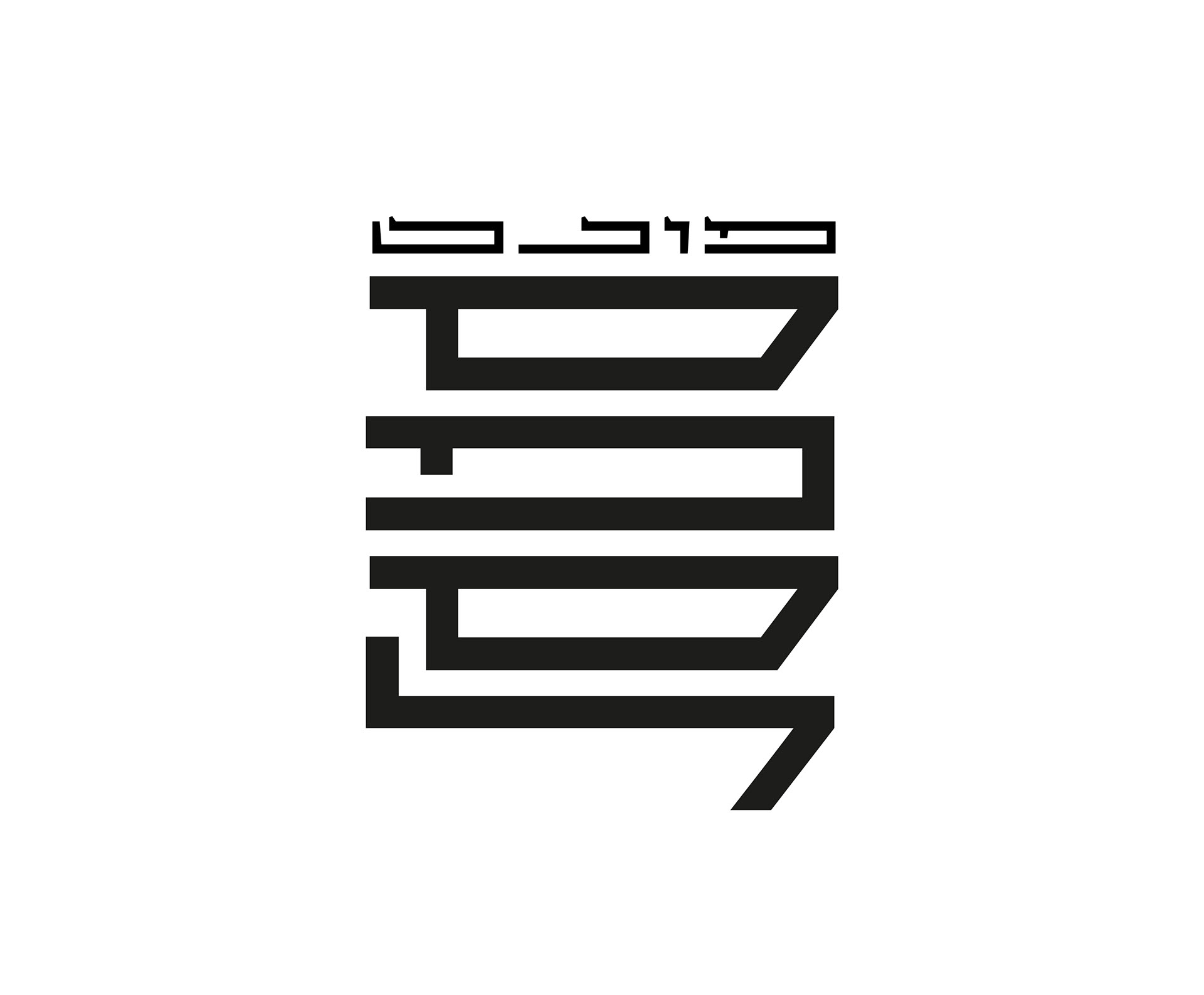
"Slang" is a street style clothing shop made for skaters and youth who "live in the streets".
"Osafim Mebeit Aba" is a fanzine (fan magazine) which showcase personal collections.
"Safeguard" is a tech company who provides a smart platform for monitoring managing safety at construction work sites.
"Rebdion Yerushalmi" is a smart construction company specializing in planning, development, production and installation of construction infrastructure products of complex materials.
״The Commission for Equal Rights of Persons with Disabilities״ is a unit within the Ministry of Justice that works to prevent discrimination and promote the integration of persons with disabilities in Israeli society.
"KIRU" is a Samurai high tech company that makes gaming products with cutting edge precision.
"tef tech" is a private startup specializes in producing innovative nutritional supplement snacks made from tef flour, providing consumers with energy and healthy nutrition in a tasty and convenient way
״The Commission for Equal Rights of Persons with Disabilities״ is a unit within the Ministry of Justice that works to prevent discrimination and promote the integration of persons with disabilities in Israeli society.
"FobiFont" is a store meant to demonstrate the feeling of the fear of long words (Hippopotomonstrosesquippedaliophobia).
"Atlantium" is a tech company that provides a sustainable water purifying treatment solutions.
"Los Santos" is an Israeli-Argentinian football bar beer brewery.
״The Commission for Equal Rights of Persons with Disabilities״ is a unit within the Ministry of Justice that works to prevent discrimination and promote the integration of persons with disabilities in Israeli society.
״Merkaz Tal״ is a healer clinic specializing in professional and compassionate guidance that combines diverse healing techniques, tailored to each client's needs, aiming to create mental, spiritual, and physical balance.
"Cringe" is a group of hackers whose its only purpose is to annoy their victims.
"Safsal" is an ultra-wide Hebrew display font suitable for horizontal and vertical writing.
"Autofocus" is an art photography TV channel.
״The Commission for Equal Rights of Persons with Disabilities״ is a unit within the Ministry of Justice that works to prevent discrimination and promote the integration of persons with disabilities in Israeli society.
"ART URBAN RACE" is an ART MEDICAL company HR event based on the famous reality TV show "The Amazing Race" ("Hmerutz Lamilyon") and takes places in Tel-Aviv.
"Cubano" is a Cuban food truck with special homemade Cuban recipes.
"The Circle" is a secret cult of people who lives and does EVERYTHING together and have a zero privacy policy.
"Yggdrasil" is a museum of the Viking culture.
A family emblem for the Slook family.
"Refloat" is none profit group that's asks fisherman to collect corks from the beach and recycles them into fishing floats.
"Buckle" is an app based smart baby car seat belt which alerts when the child is forgotten in the car.
"Omer Slook" personal logo. The codenced version is made out of my initials in English and in Hebrew.